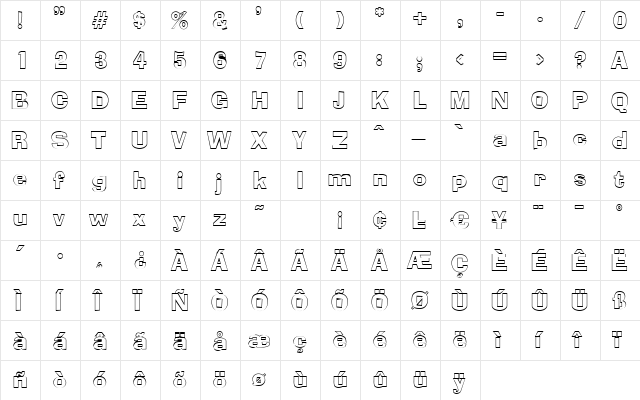
AlexisBeckerOutline Normal Font Preview
AlexisBeckerOutline Normal
AlexisBeckerOutline Normal Font Details
Design Context for AlexisBeckerOutline Typeface
AlexisBeckerOutline brings ornamental detail and strong personality to headlines and identities, where visual impact matters more than quiet functionality.
Font Pairing: Pair with a clean neutral sans-serif for body copy to let AlexisBeckerOutline's character lead without overwhelming the composition.
Pro Tip: Use AlexisBeckerOutline exclusively at display sizes — it was designed to be seen, not read at length. Let a neutral companion handle body copy.